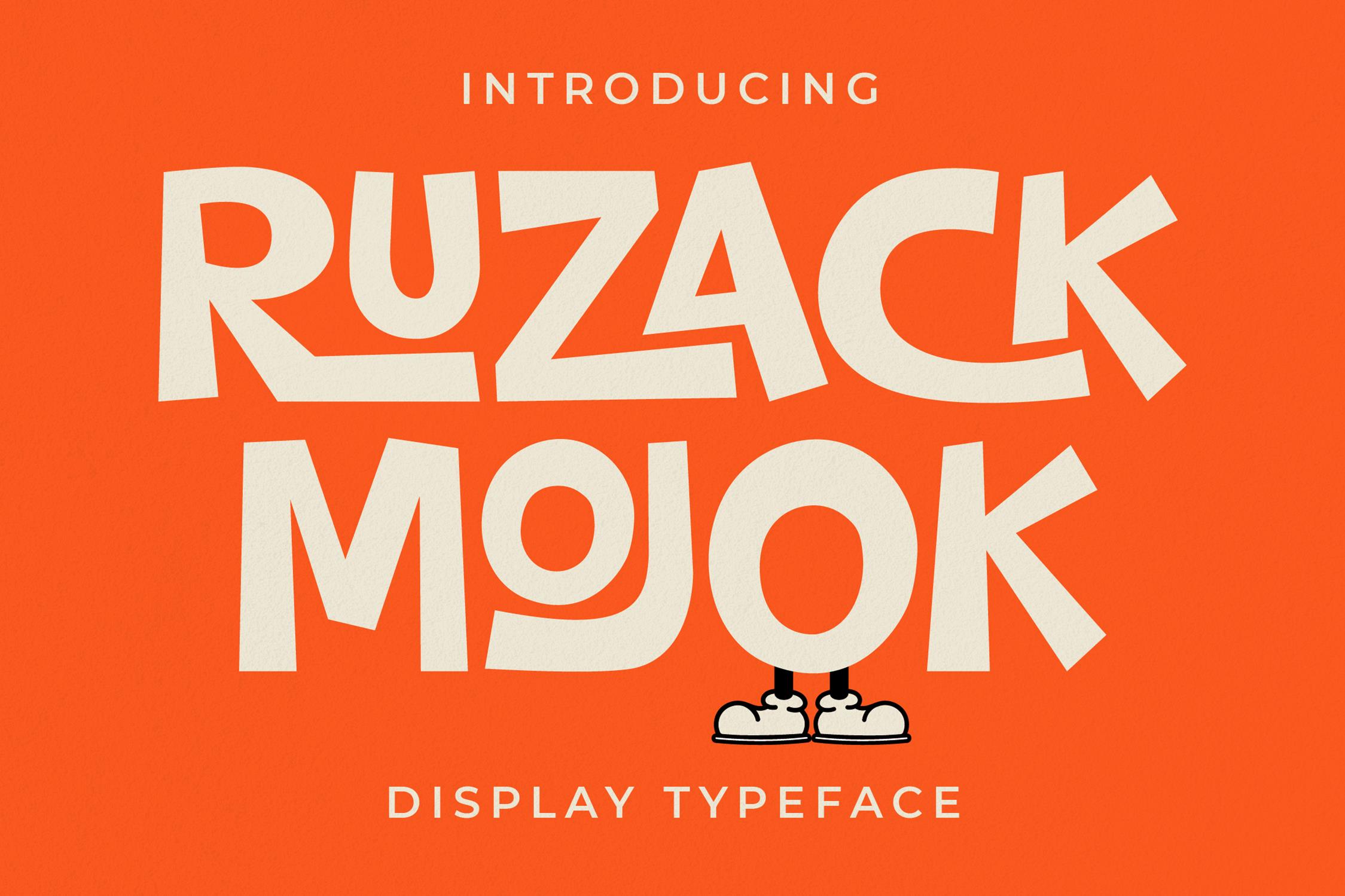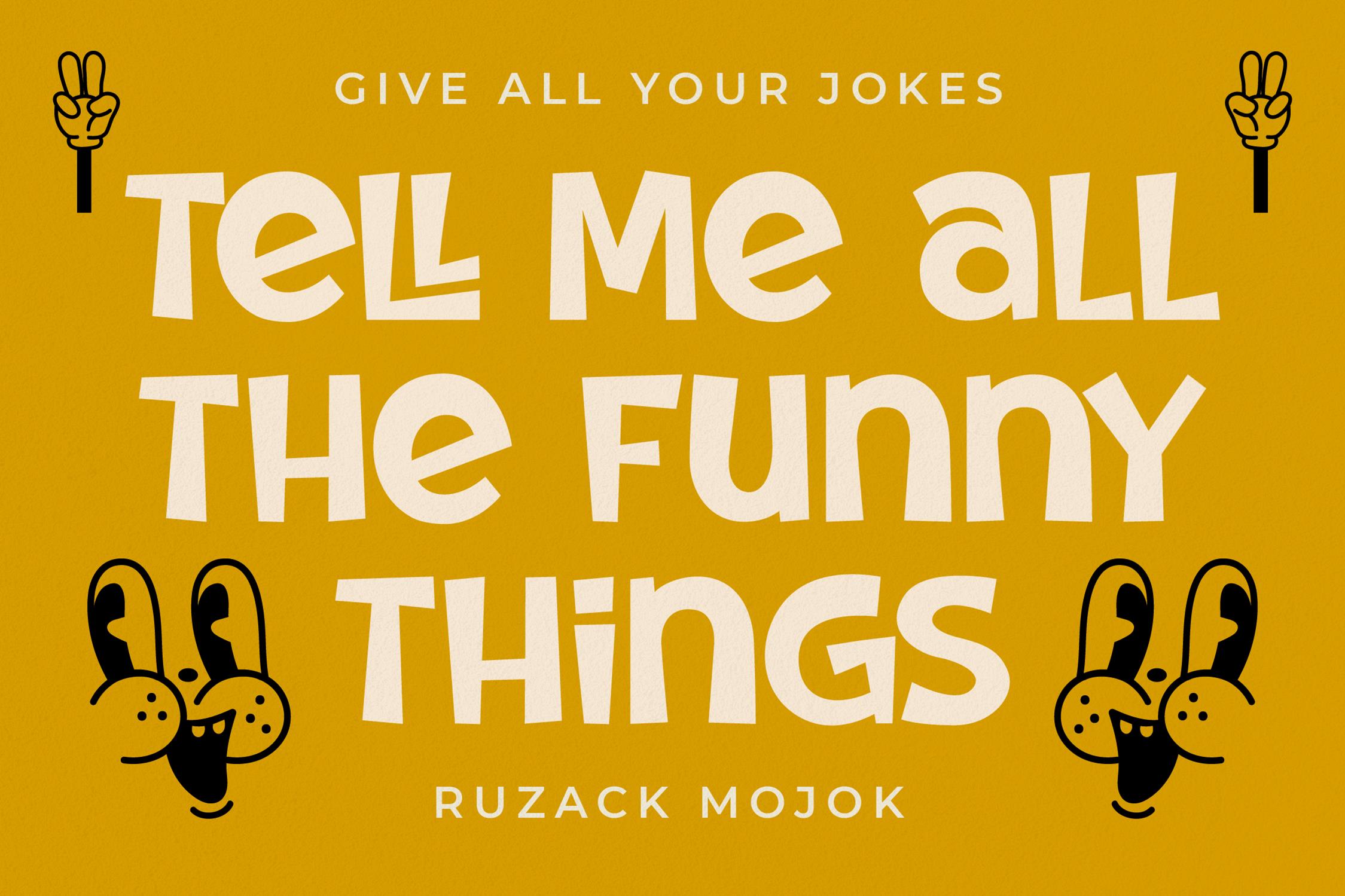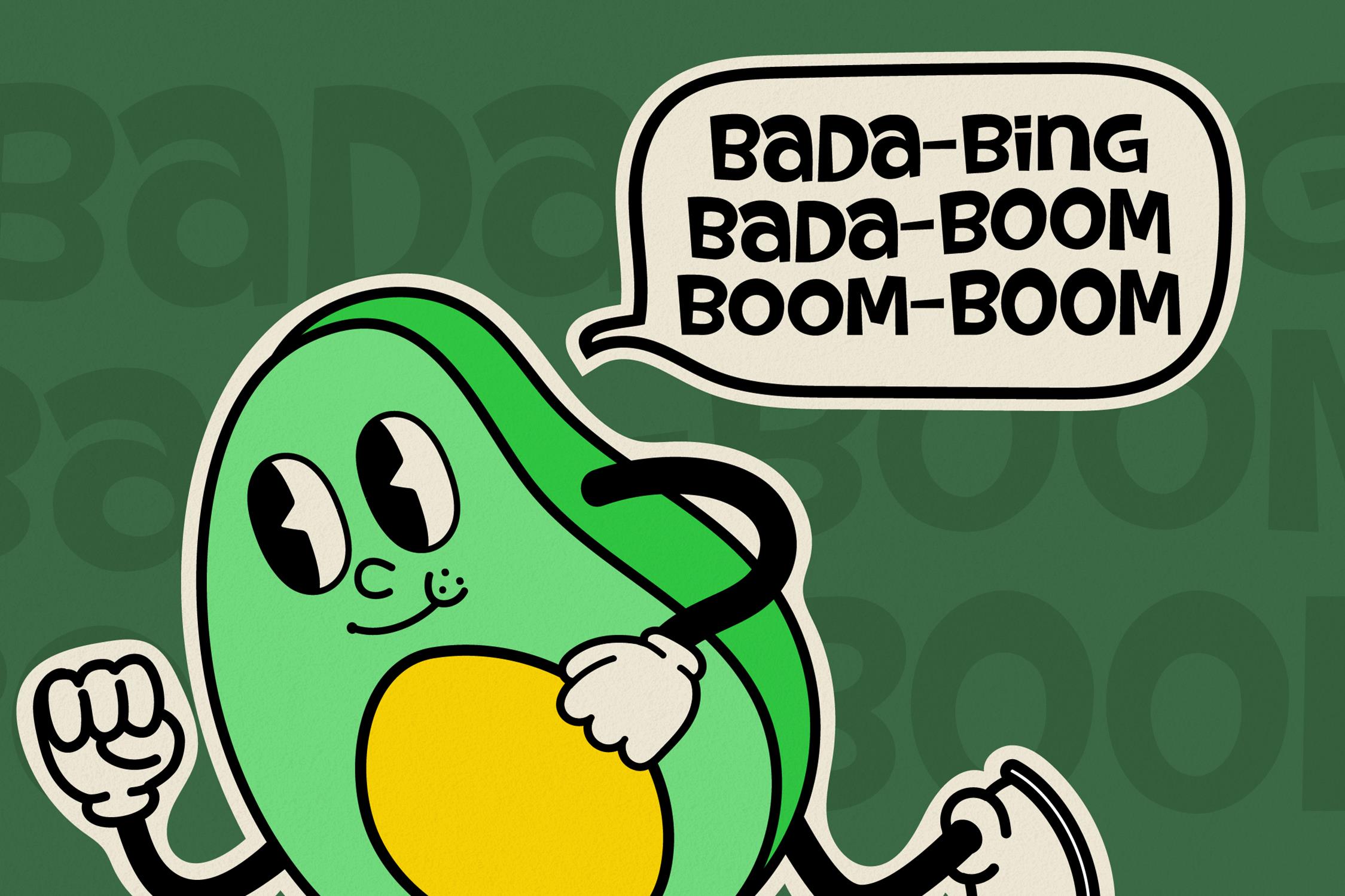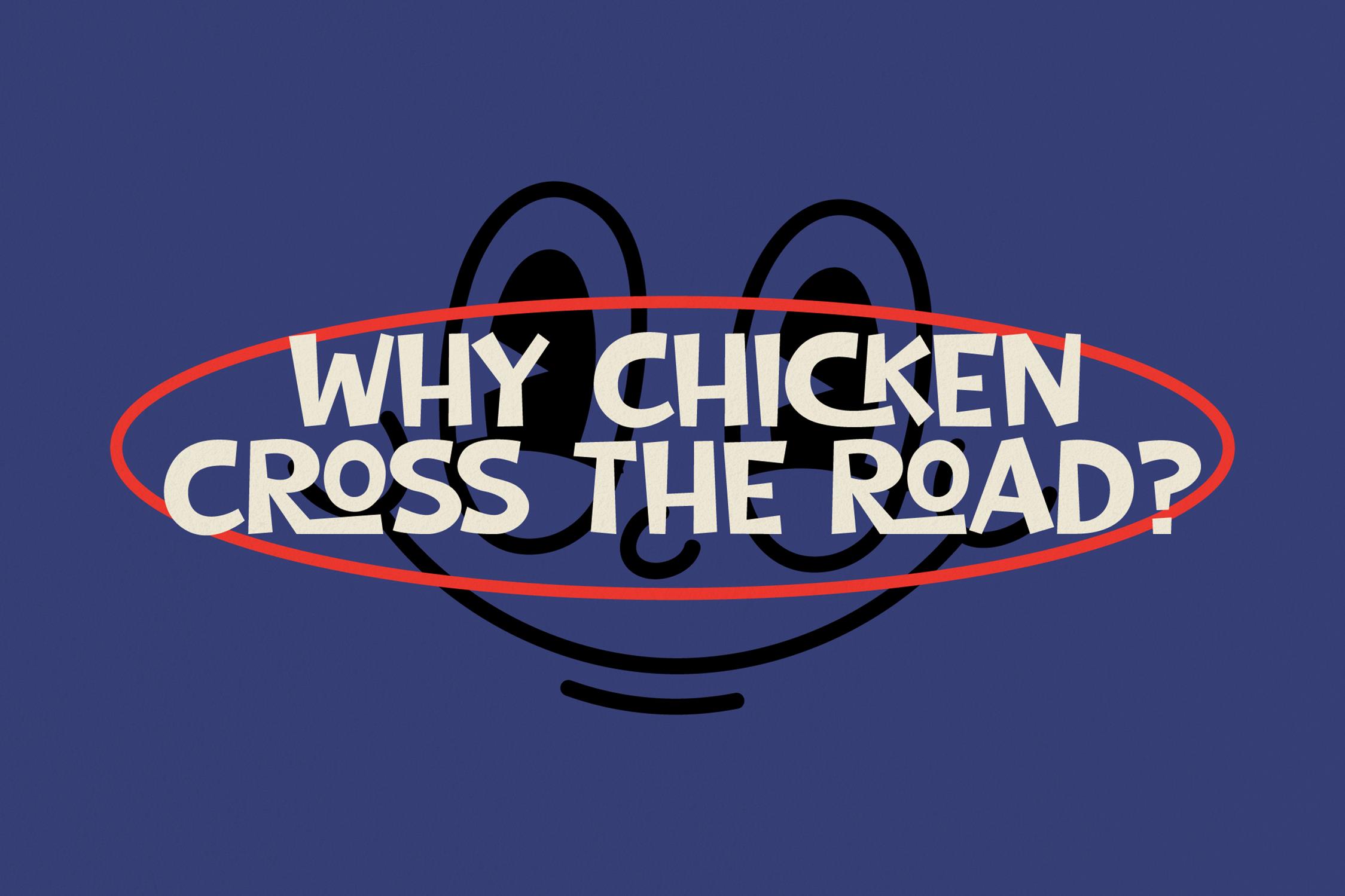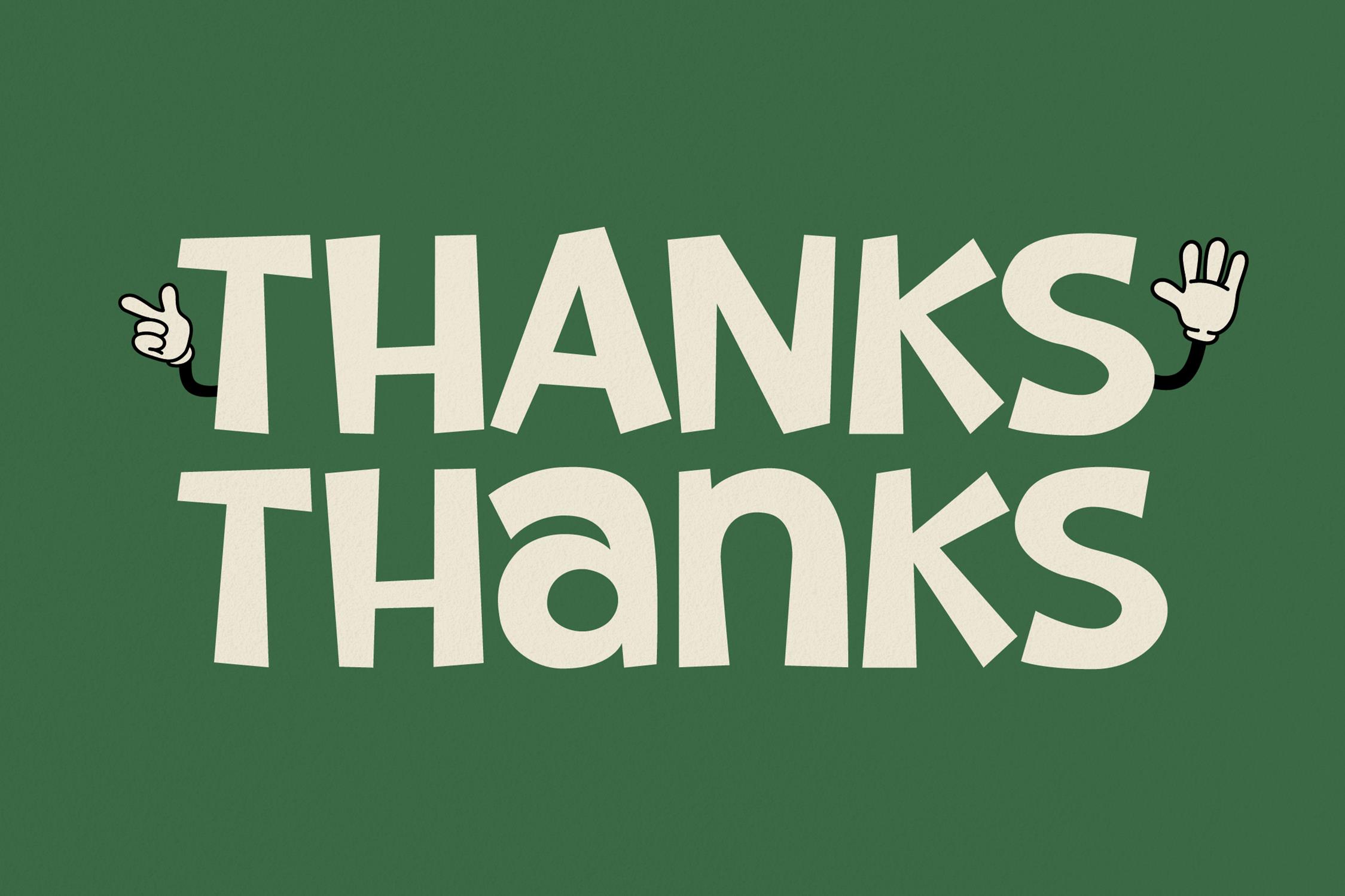
RUZACK MOJOK Font
RUZACK MOJOK Display Font
A display modern and classic typeface that has own unique style & modern look. This typeface is perfect for an elegant & luxury logo, book or movie title design, fashion brand, magazine, clothes, lettering, quotes, and so much more.